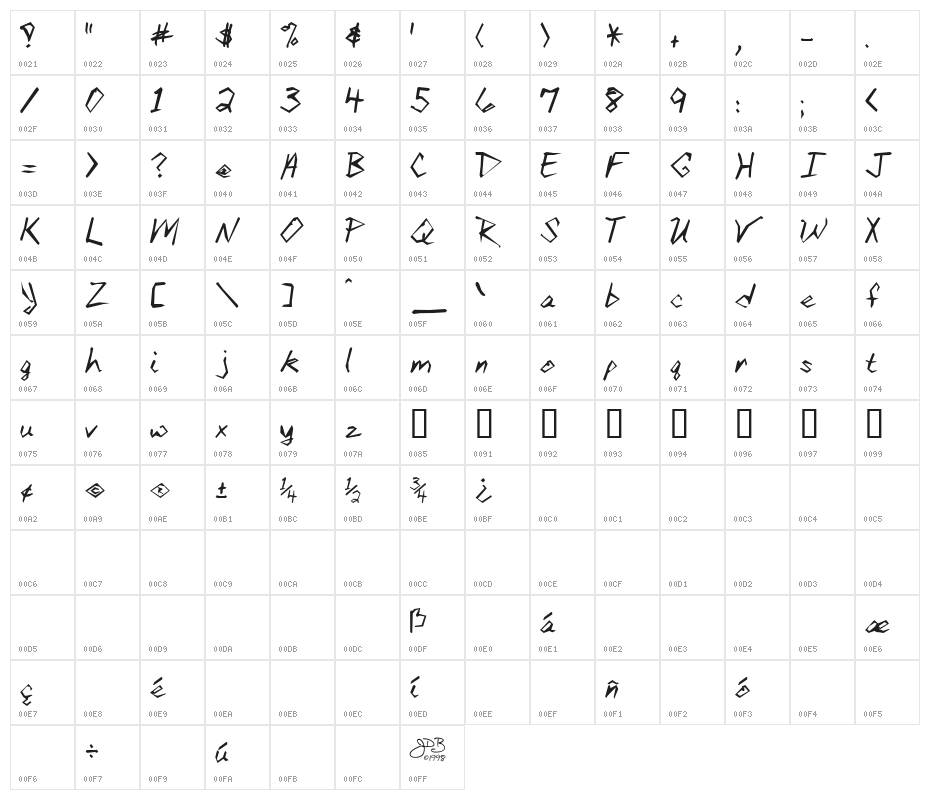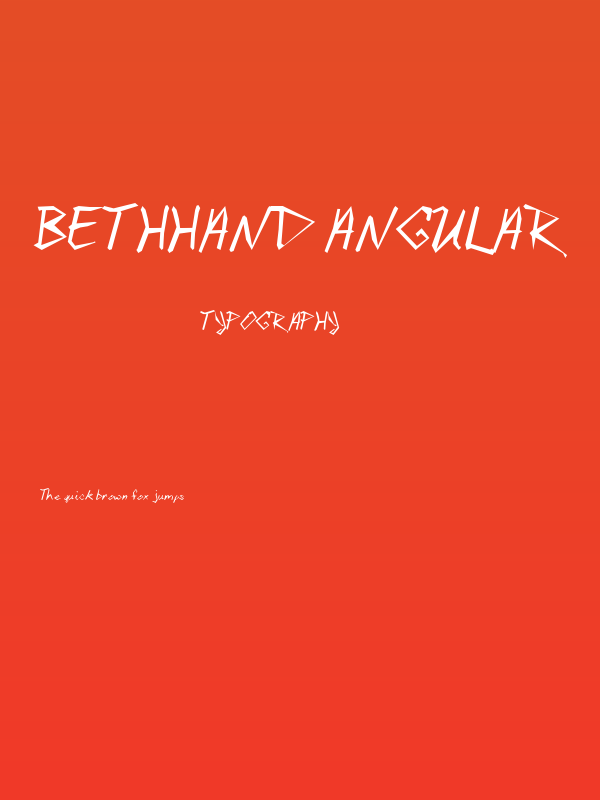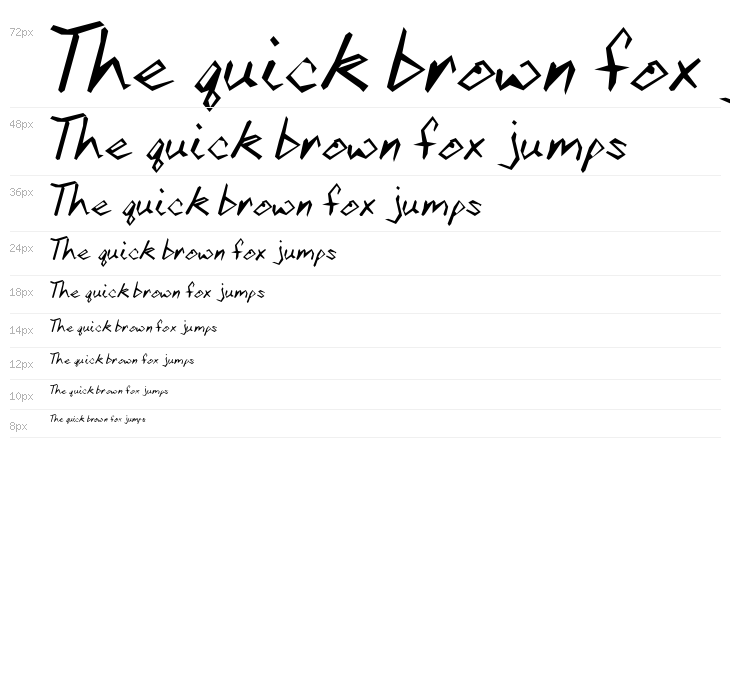
BethHand Angular Font
BethHand Angular Description
This font exhibits a unique, angular style that mimics a handwritten appearance with a modern twist. The characters are sharply defined with irregular angles, giving it a dynamic and edgy look. The uppercase and lowercase letters maintain a consistent angular theme, while the numerals and special characters follow suit, providing a cohesive visual experience. The strokes are bold and confident, with a medium contrast that enhances readability while maintaining its distinctive style. This font's playful yet structured design makes it suitable for creative projects.
Proposed ProjectsIdeal for branding, posters, album covers, and any project seeking a modern, edgy aesthetic.